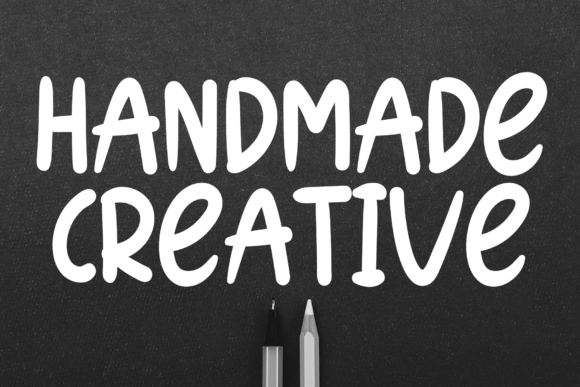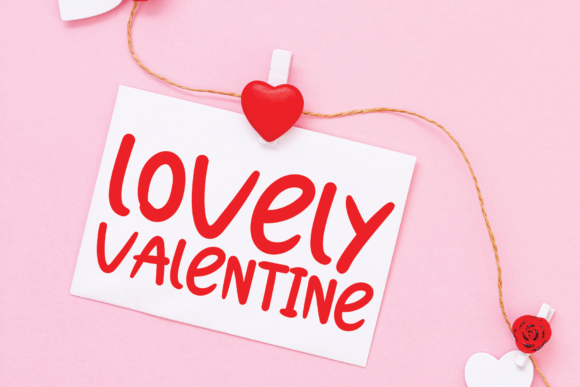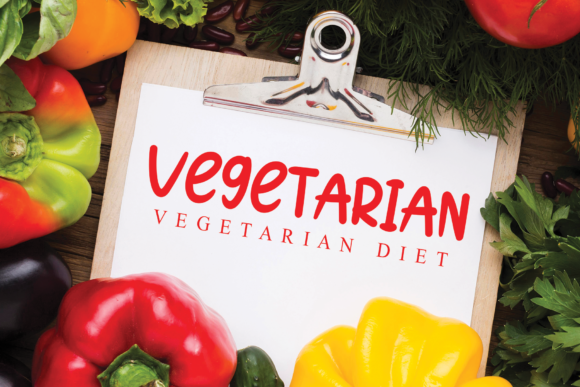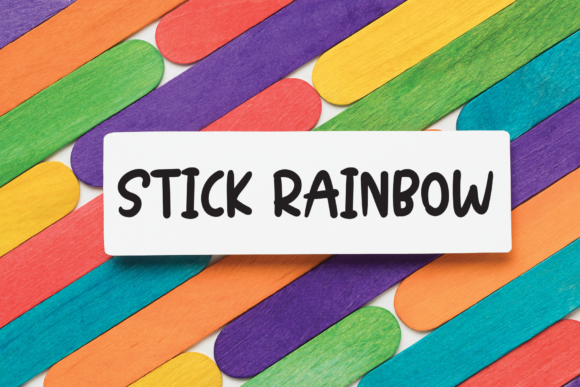
Introduction to Modern Coffee Font
As a designer, have you ever found yourself in the midst of a creative project, searching for the perfect font to bring your vision to life? You scroll through page after page of design resources, but nothing seems to capture the essence of your idea. That’s when you stumble upon it – a beautiful, handwritten font that speaks directly to your soul. For many designers, this moment of discovery is what makes all the hard work worth it.
Enter the Modern Coffee Font, a sweet and friendly paint brushed handwritten font that’s sure to be the perfect addition to any creative project. With its natural and unique style, the possibilities are endless, limited only by your imagination.
Key Features of Modern Coffee Font
- High-quality design resource featuring a modern coffee-inspired aesthetic, perfect for creative projects and branding.
- Transparent background allows for seamless integration into any design, giving users the flexibility to customize and adapt the font to their needs.
- Includes a range of glyphs and characters, making it suitable for a variety of creative projects, from logos and branding to packaging and advertising.
- Designed with a high-resolution output in mind, ensuring that the font looks crisp and clear at various sizes and resolutions.
- Unique characteristics include a bold and modern feel, with clean lines and a minimalist approach that sets it apart from other fonts in the market.
- Perfect for designers, artists, and creatives looking for a high-quality design resource that is both versatile and easy to use.
Honest Review: Modern Coffee Font
As a designer, I was excited to try out the Modern Coffee Font for my latest creative project. The first thing I noticed was its sleek and modern aesthetic, perfect for a coffee shop brand or a design that evokes the feeling of a bustling coffeehouse.
The font comes with a transparent background, making it easy to layer over images or use as a standalone design element. This feature is especially useful when working with a design resource like this font, where you want to maintain flexibility and control over the final product.
Here are some things that work well with Modern Coffee Font:
- High-quality design that’s perfect for modern branding
- Transparent background for easy layering and customization
- ⚠️ Limited character set, which may not be ideal for longer blocks of text
- ⚠️ Not as versatile as some other fonts, which may limit its use in certain design applications
Overall, I was impressed with Modern Coffee Font’s modern look and feel. While it may not be the perfect font for every project, it’s a great addition to any design library, especially for those looking for a high-quality, free design resource.
Modern Coffee Font
Modern Coffee Font is a high-quality design resource that can elevate your creative project to the next level. This free download features a unique, modern design that can add a touch of sophistication to any visual content.
Modern Coffee Font is perfect for use in a variety of creative projects, including:
- Graphic design and visual content creation